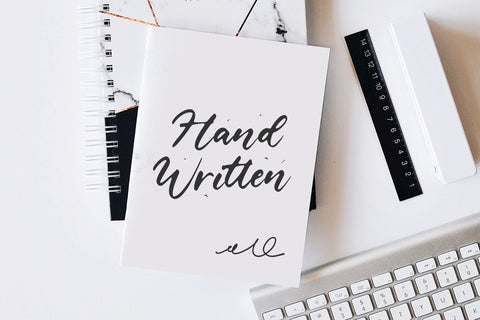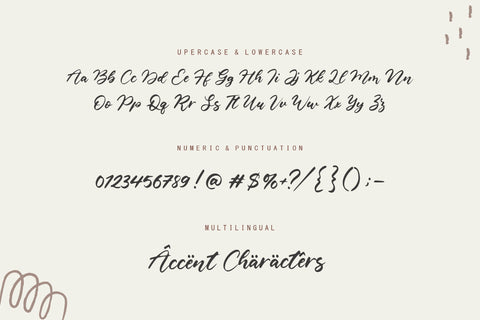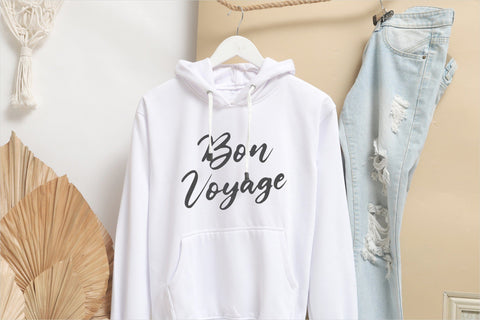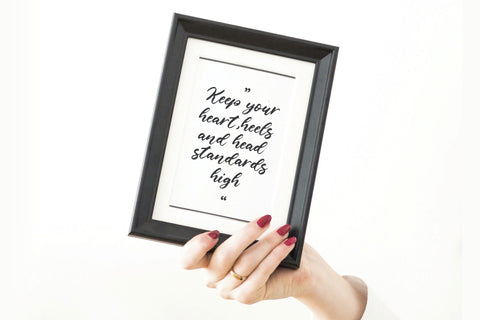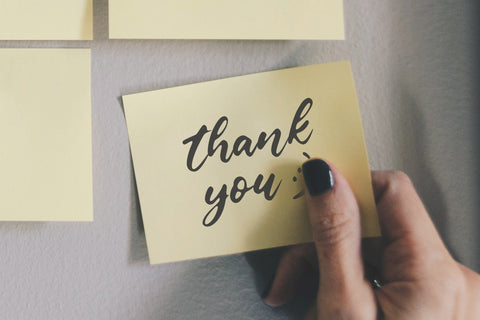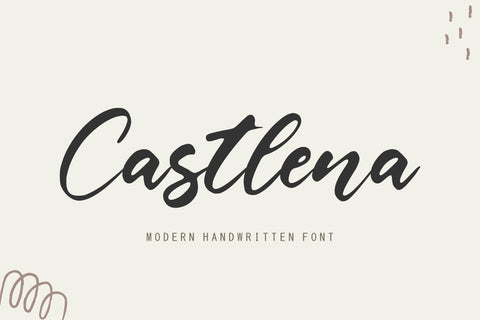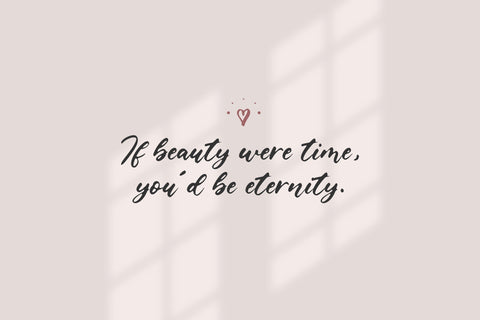
Castlena Modern Handwritten Font
Proudly Present, Castlena Font.
Castlena is a Modern Handwritten Font.
Castlena is a flowing handwritten font, described by an elegant touch, perfect for your favorite projects. Fall in love with its incredibly distinct and timeless style and use it to create spectacular designs!